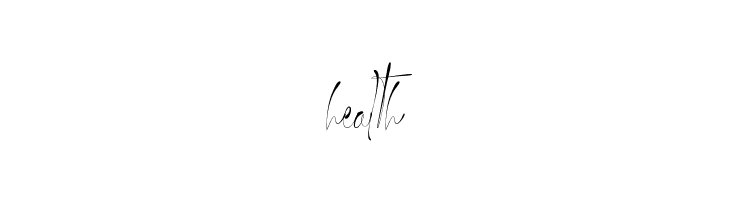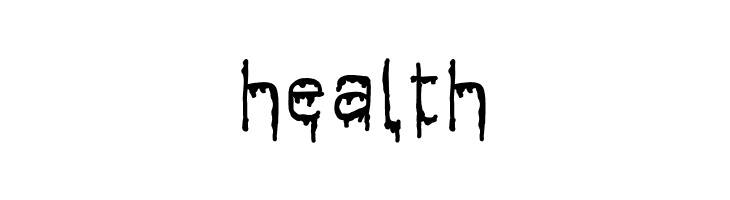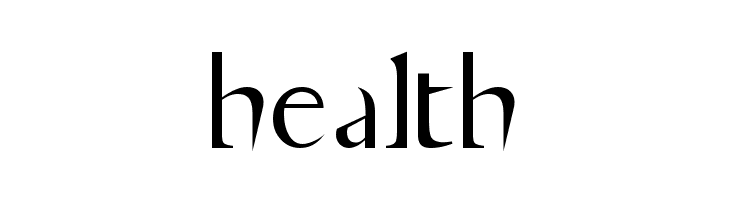
A whimsical and artistic font with irregular, hand-drawn letterforms.
A dripping, liquid-like font ideal for dramatic and eerie designs.
A playful, informal handwritten font with uneven strokes and a casual style.
A playful and casual handwritten font with an authentic, personal touch.
A bold, handwritten font with a playful and informal style.
An elegant, flowing script font with intricate decorative elements.
An elegant, flowing script font with intricate loops and high contrast.
A bold, vintage-inspired font with a strong, authoritative presence.
A bold, vintage-inspired serif typeface with strong, thick strokes.
A sophisticated serif font with a blend of classic and modern elements.